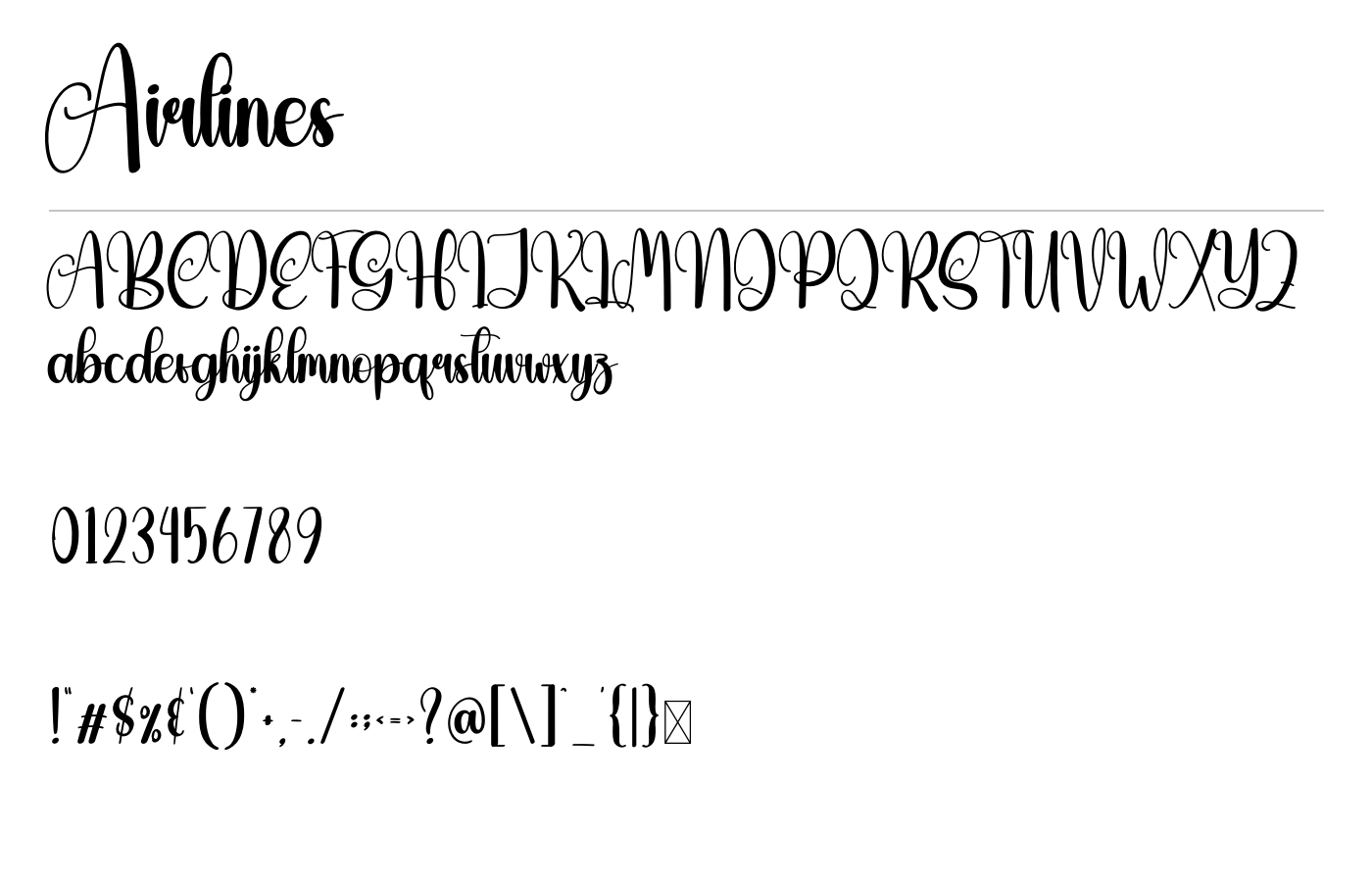
Airlines Font is a stylish script typeface with a lively, handwritten feel, featuring elegant swashes and contrasting thick-to-thin strokes that add a touch of sophistication. Its playful yet refined personality makes it ideal for creative branding, invitations, and fashion projects where a modern, graceful look is desired. This font shines in decorative uses such as logos and headings, bringing charm and a bespoke quality to any design.
Airlines Font